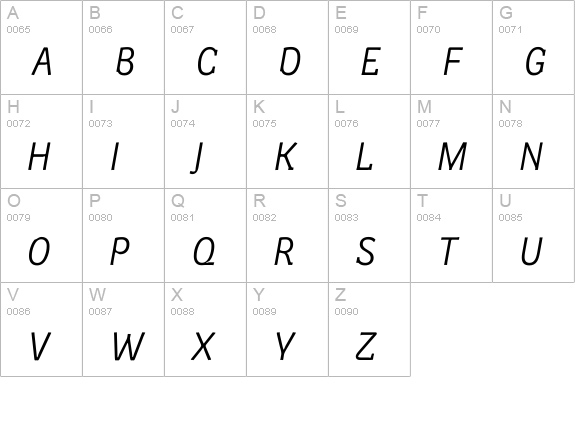
SpotkaRegular Italic Font Details
SpotkaRegular Italic is a distinctive, italic variant in the SpotkaRegular typeface family \xE2\x80\x94 well suited to design and typography projects.
SpotkaRegular Italic font is a stylish and modern typeface that exudes elegance and sophistication. Its italicized design adds a touch of flair and creativity to any text or design project. The slanted letterforms of SpotkaRegular Italic create a dynamic and eye-catching appearance, making it perfect for headings, quotes, and other attention-grabbing elements. This versatile font is free to download at FontsMarket.com, making it accessible to designers, artists, and anyone looking to add a touch of personality to their work. Whether you're working on a branding project, a website design, or a creative poster, SpotkaRegular Italic font is sure to make a statement. Download it today and elevate your designs with this elegant and free typeface.